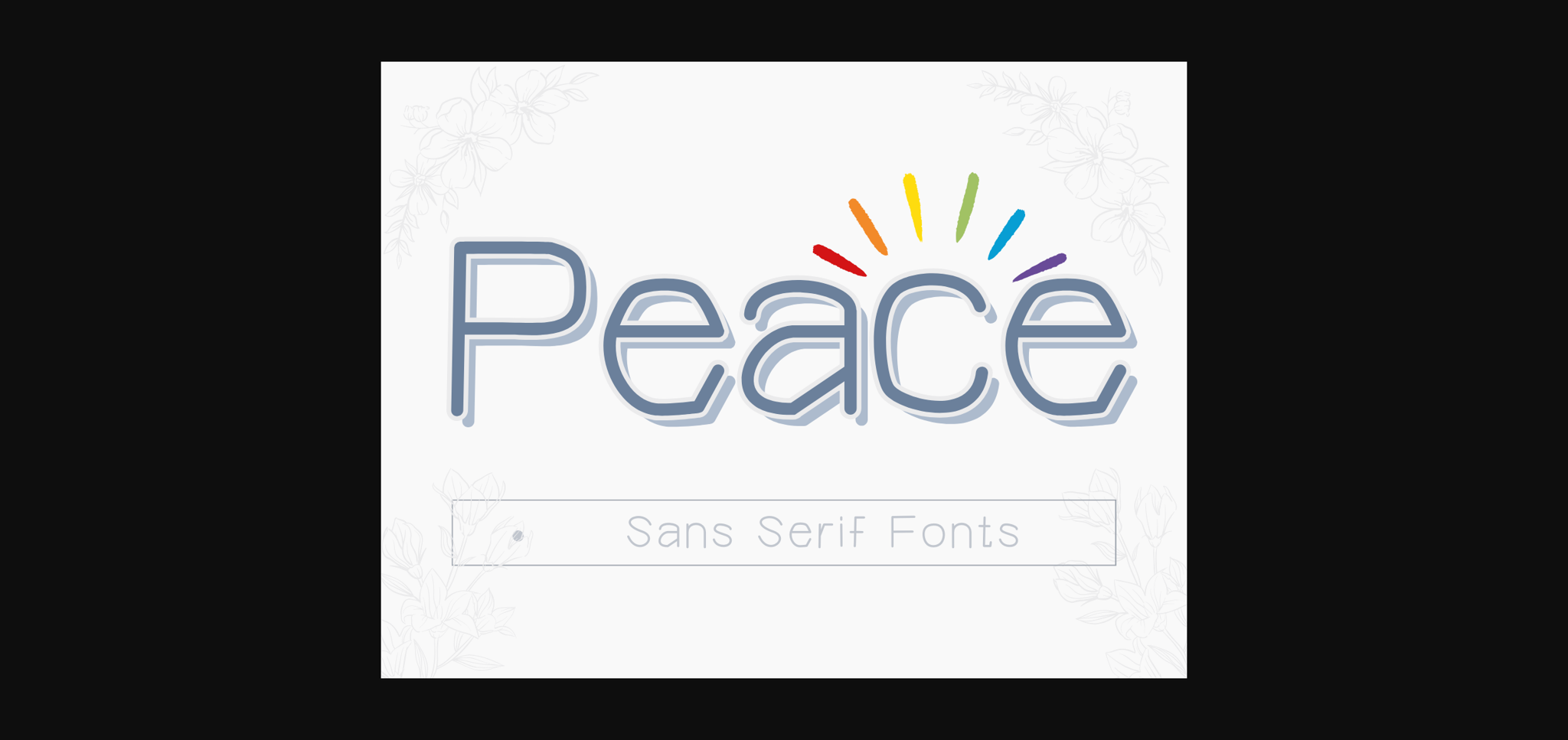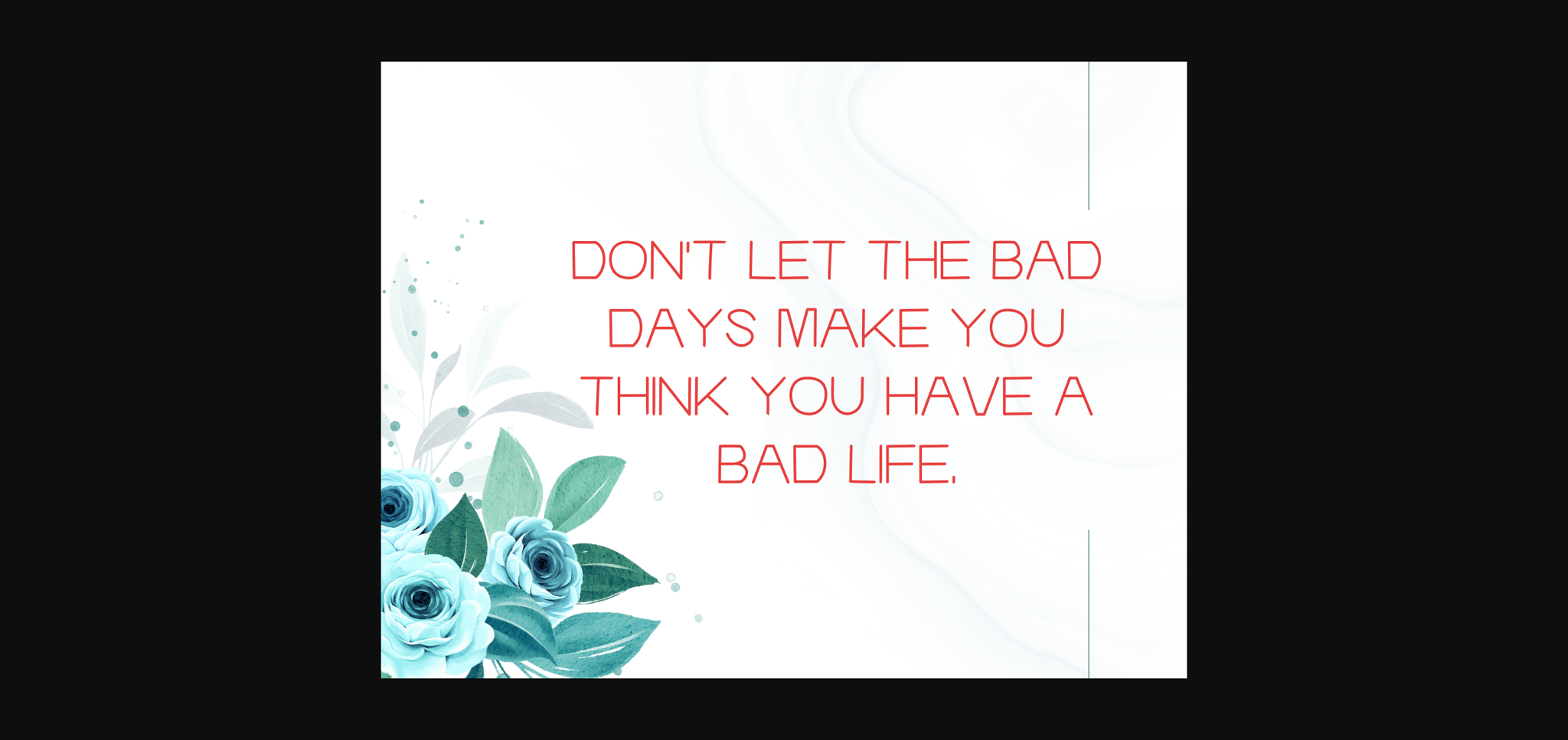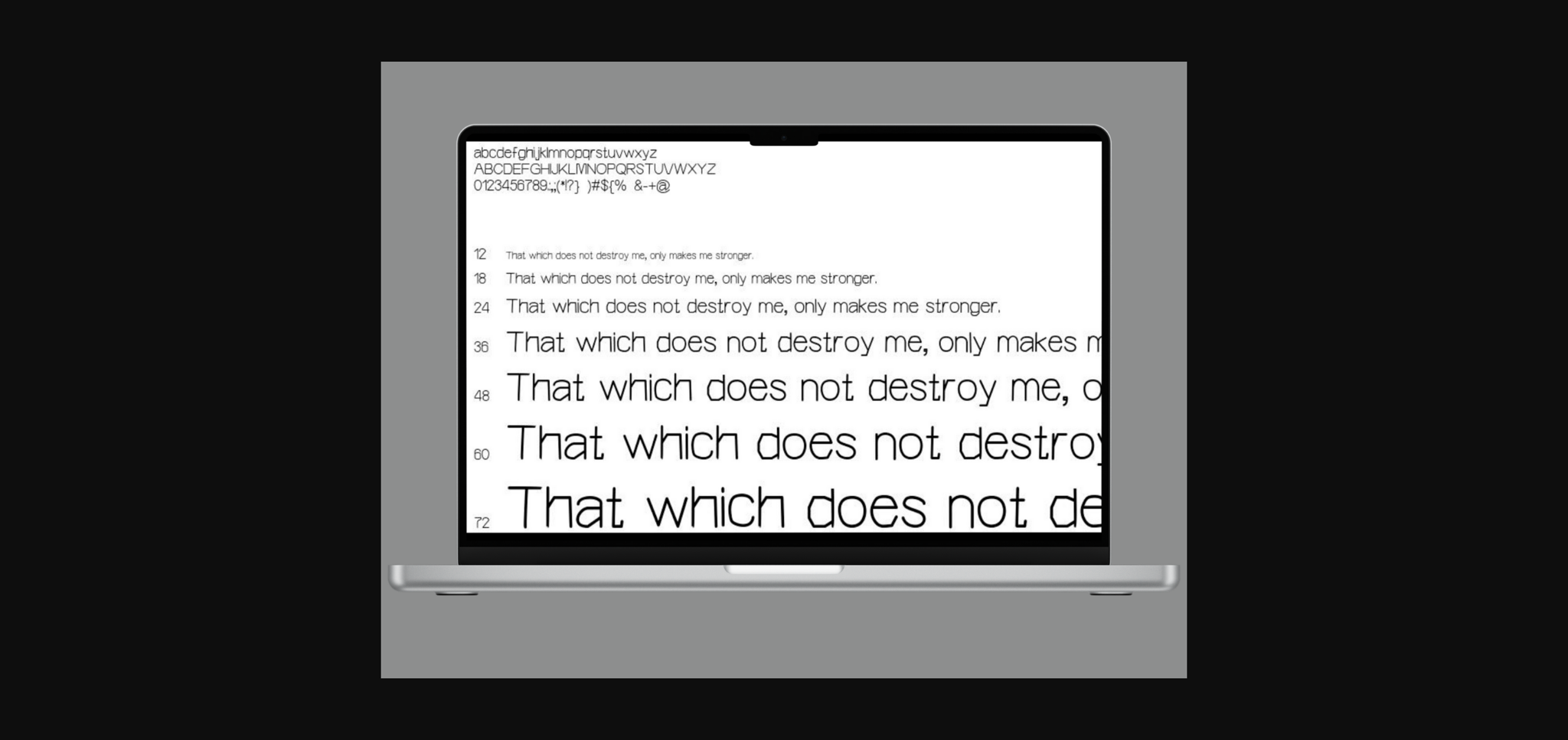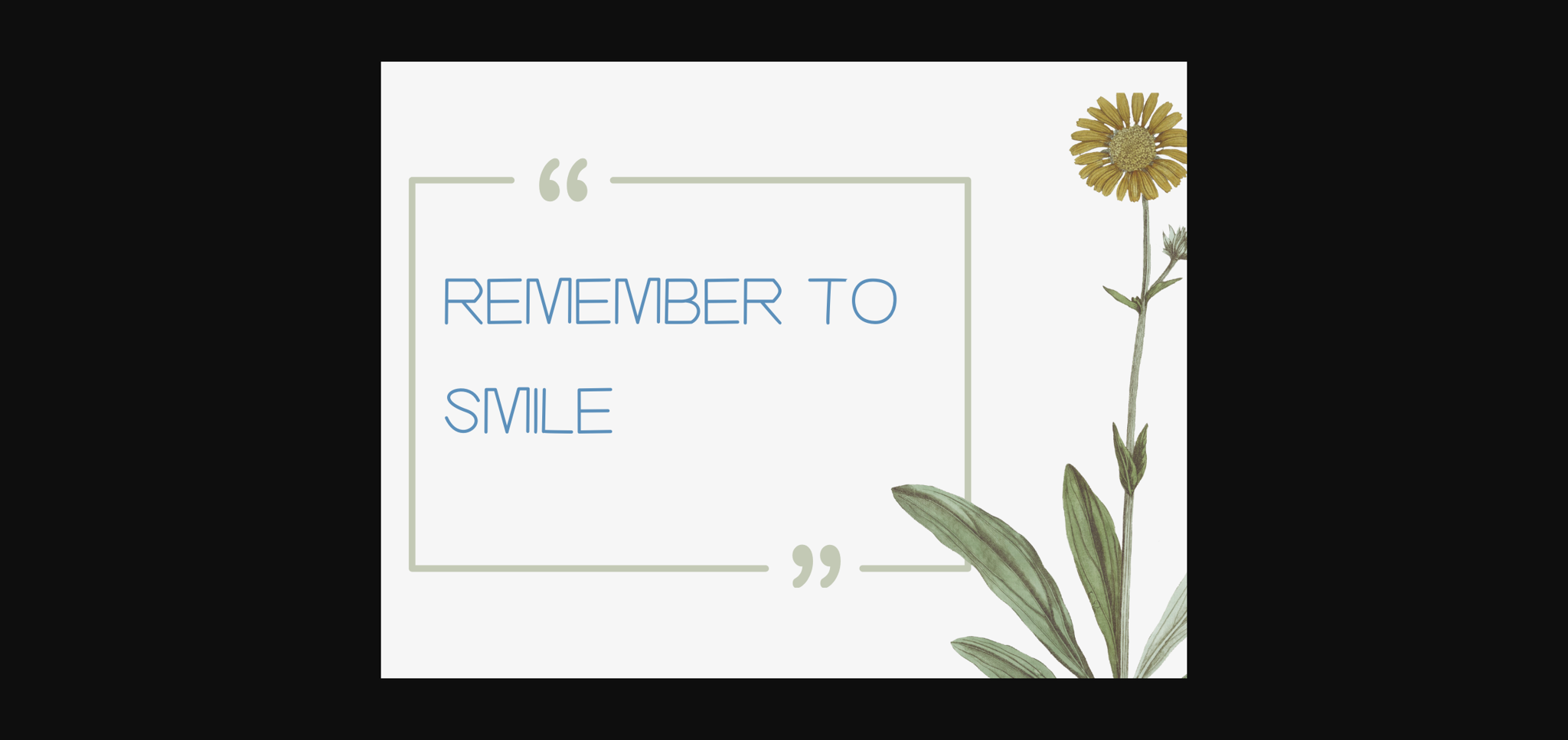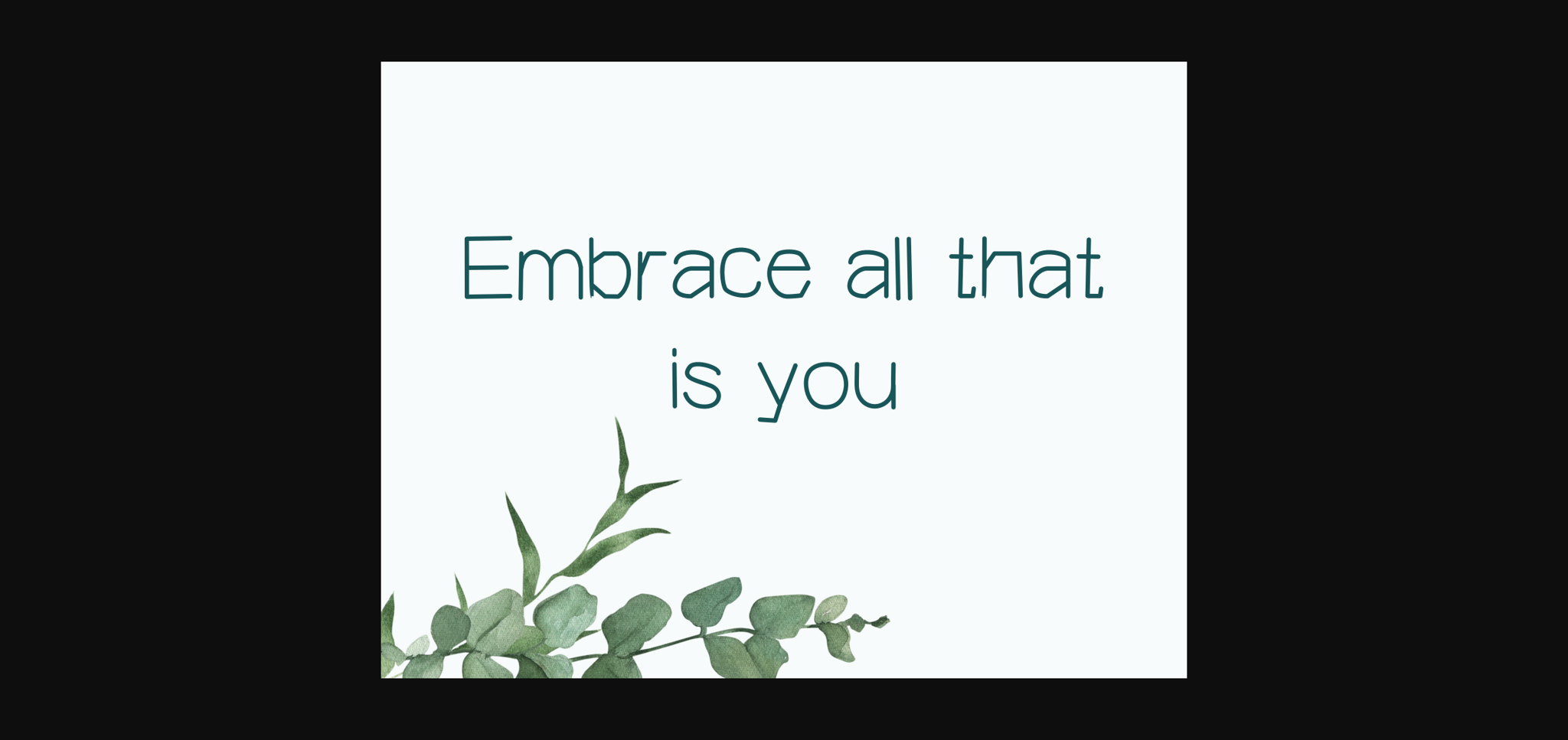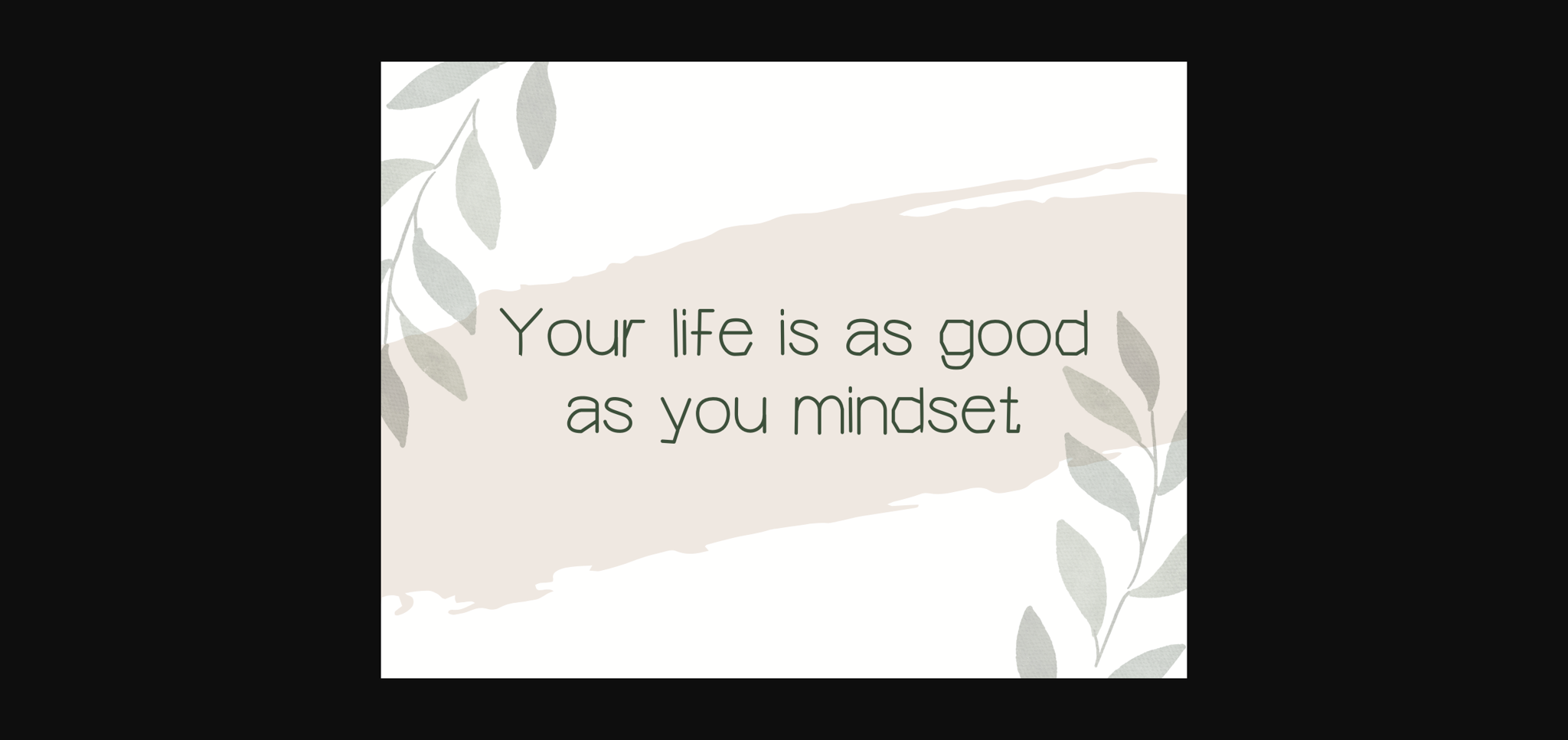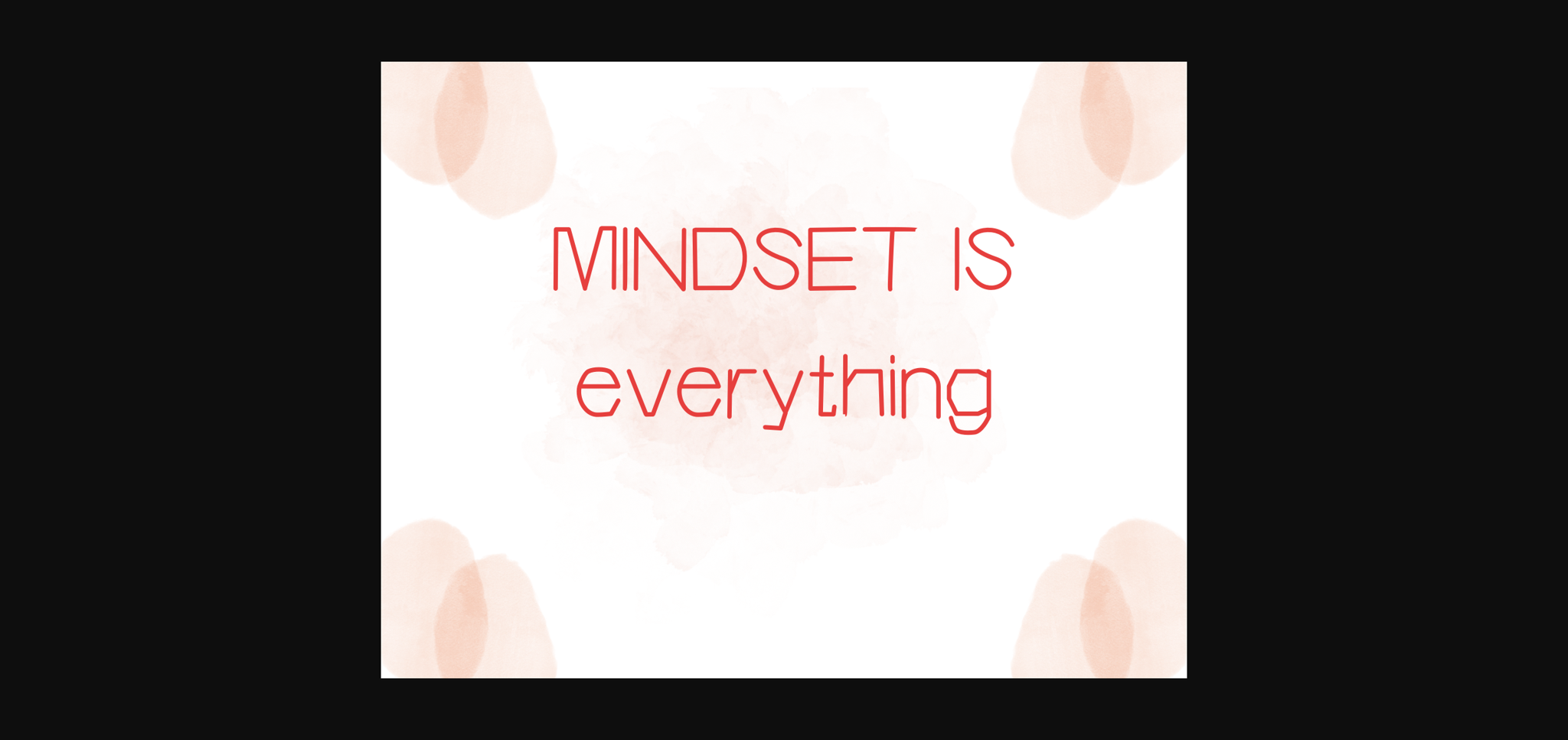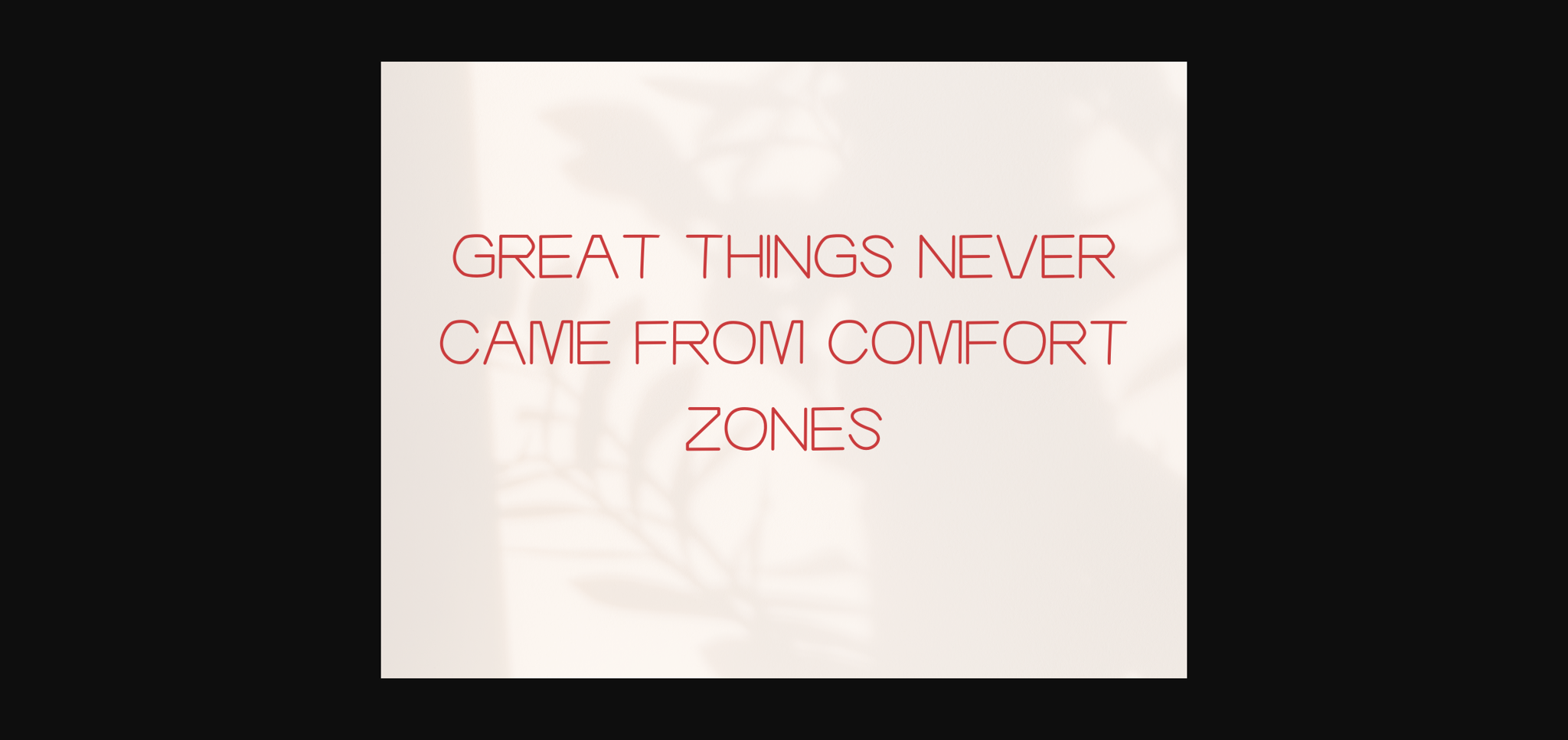
Peace Font
About Peace Font
Peace is a fun and versatile sans-serif font. Whether you’re using it for crafting, digital designing, presentations, or greeting card making, it’s perfect!